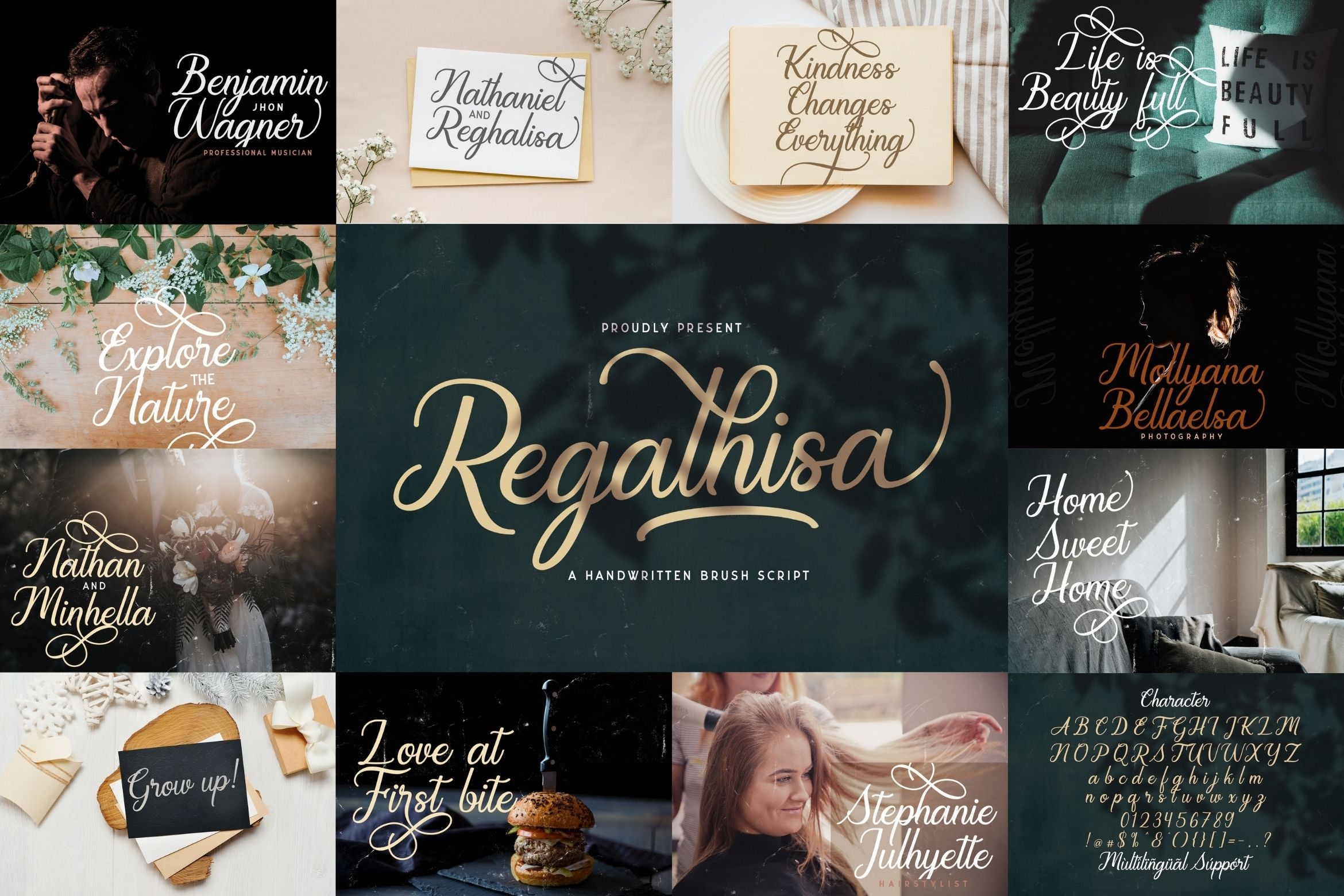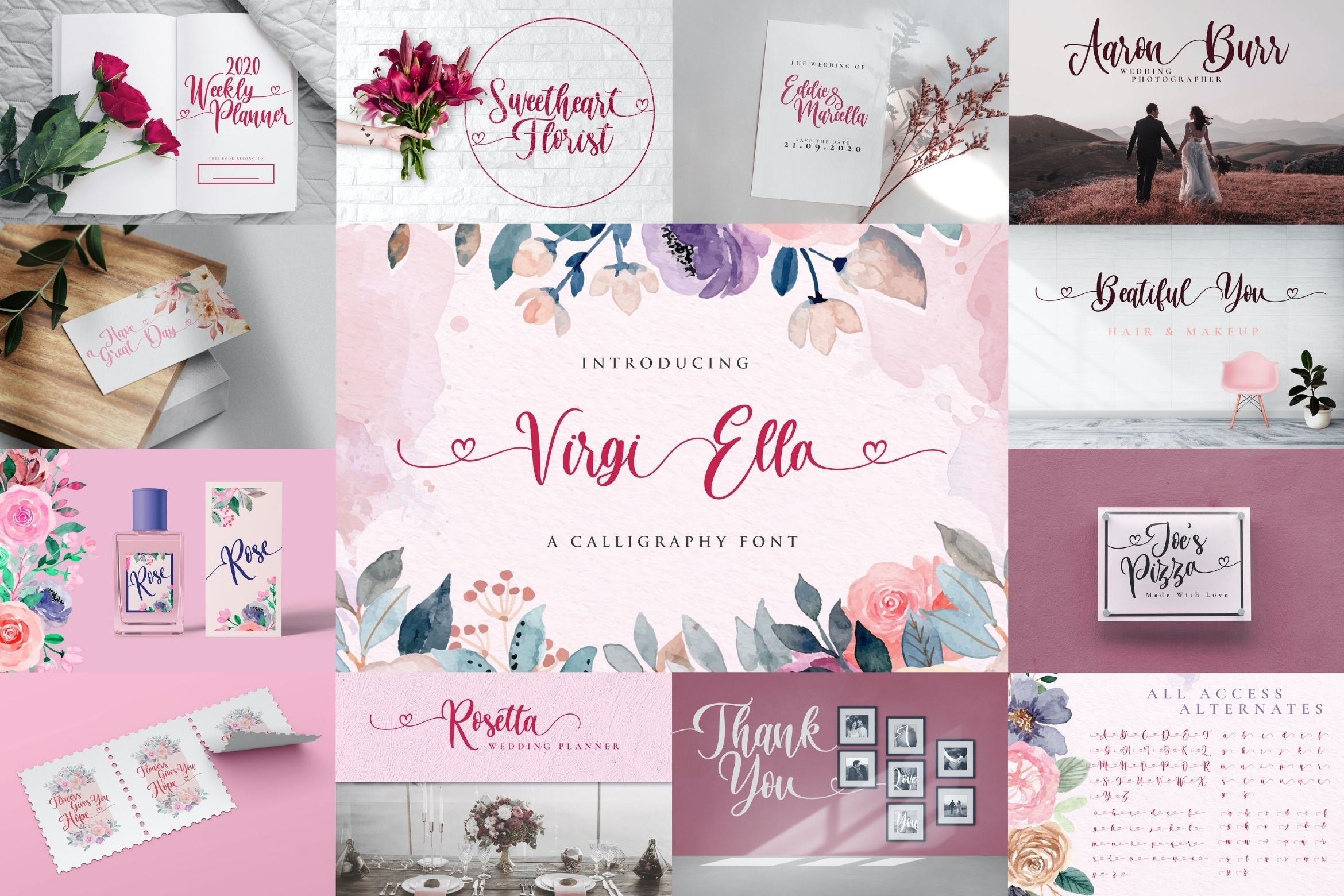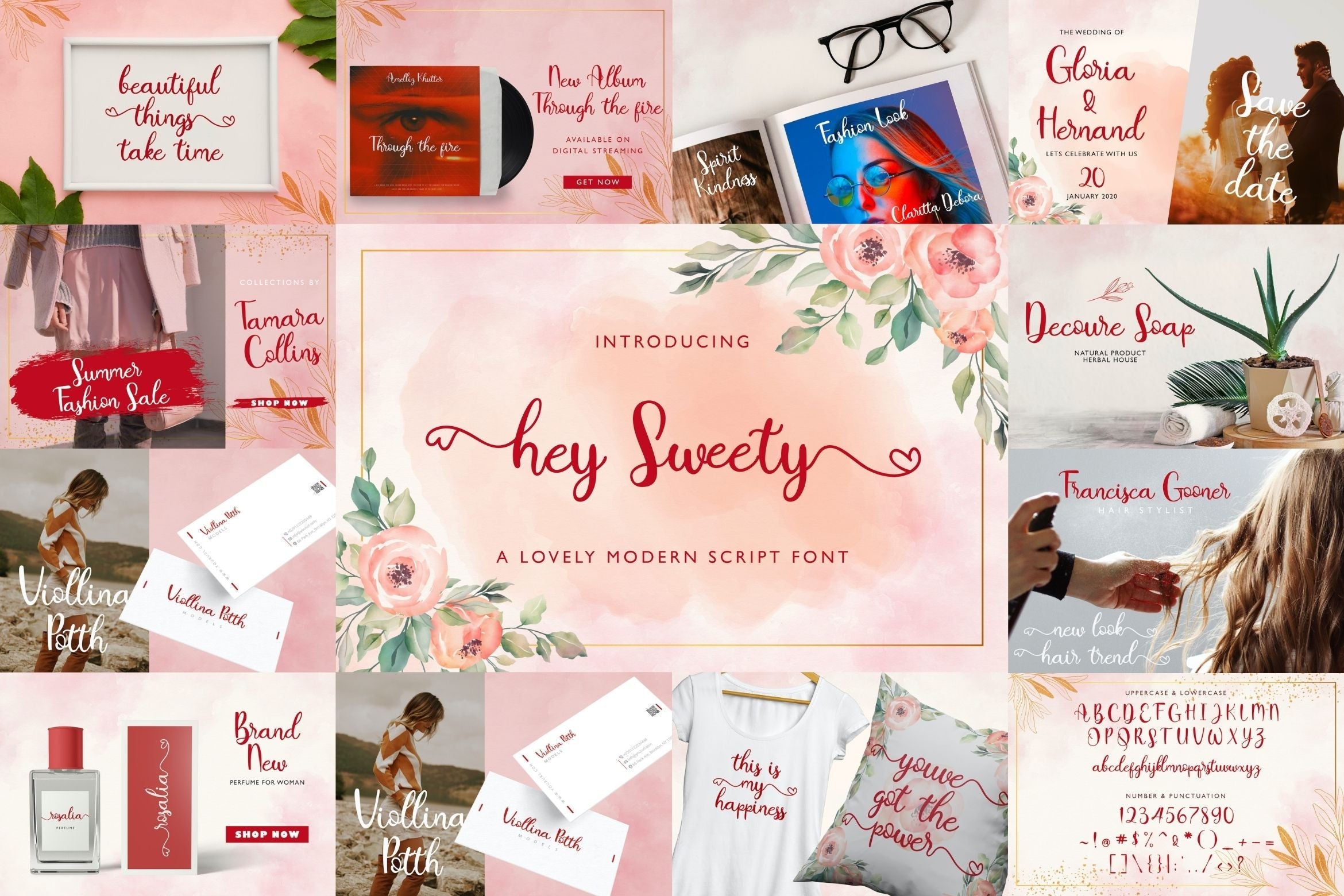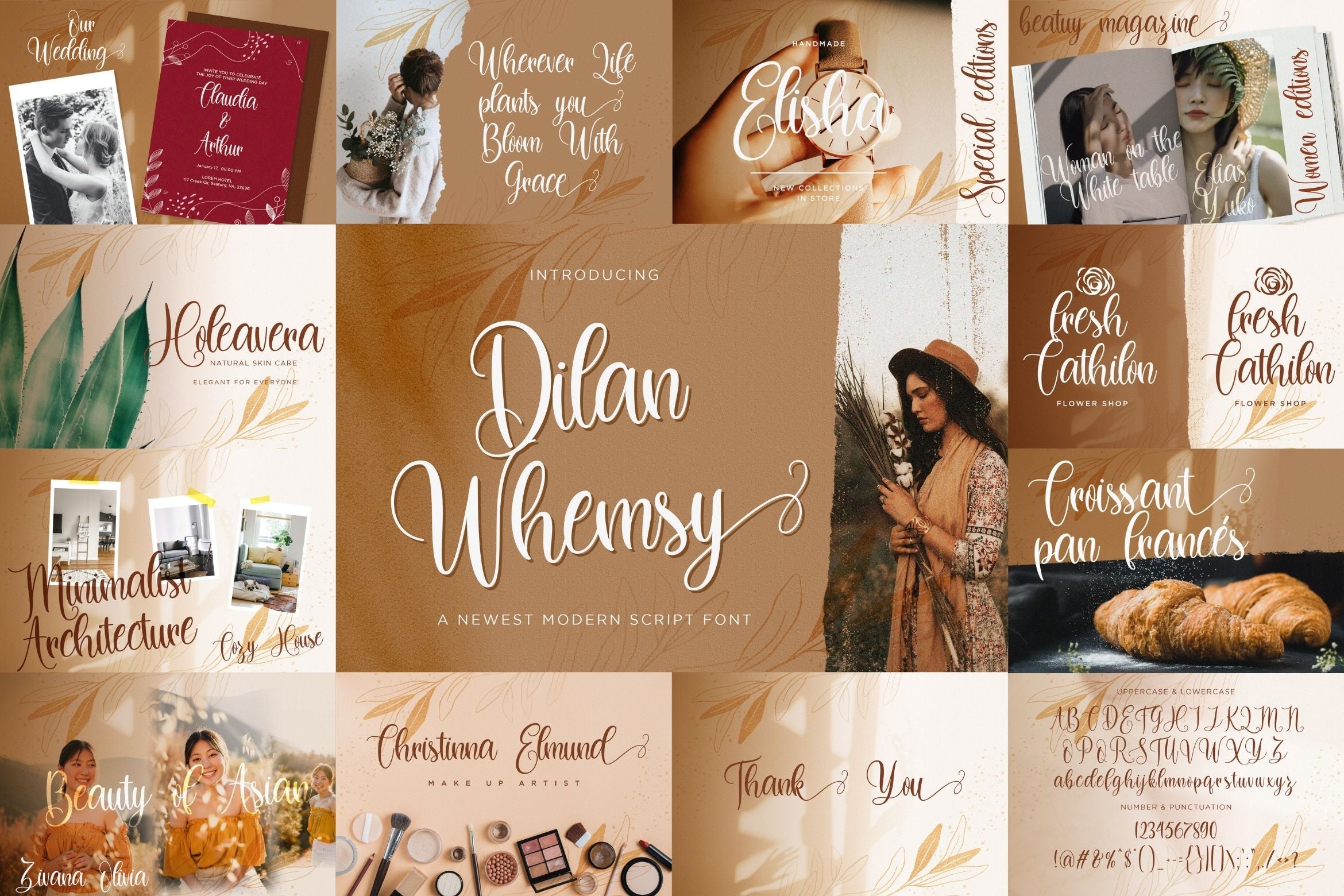
About Calligraphy Font Bundle Vol 5
Calligraphy Font Bundle Vol 5 is a delicate, elegant and flowing calligraphy font. This font bundle contains 8 high quality handwritting calligraphy script font, it will look simply magical in a wide range of design projects, and also that will look particularly adept when used in logos, branding, packaging design, and much more. It has beautiful and well balanced characters and as a result, it matches a wide pool of designs. Add it to your most creative ideas and notice how it makes them come alive! FONTS INCLUDED : 1. Butterfly 2. Rantliyer 3. Manthesy 4. Dilan Whemsy 5. Hey Sweety 6. Fendysa 7. Regalhisa 8. Virgi Ella Fonts available in format : OTF, TTF, WOFF, WOFF2